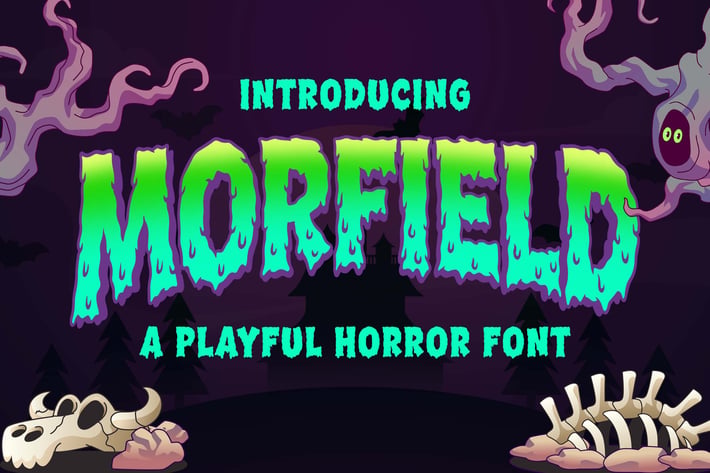
Hello, awesome people! This time, we have a new font called Morfield a Playful Horror Font by Blankids Studio.
Morfield a Playful Horror Font is made for any professional project branding, such as logotype, watermarks, poster, branding, promotions, product packaging, etc. Every letter has a playful and horror style design. This font comes in 2 font styles regular and extrude.
Morfield font includes a full set of horror uppercase and lowercase letters, numerals and punctuation. This font has a playful horror style. See the previews above to get some inspiration on how to use them. Happy designing!